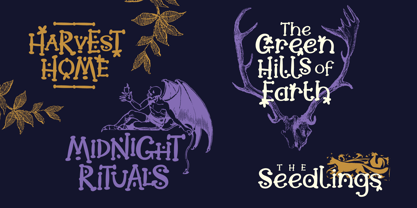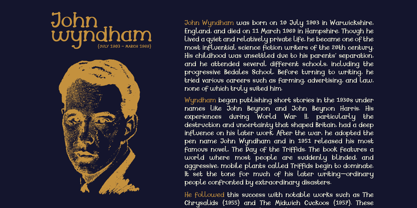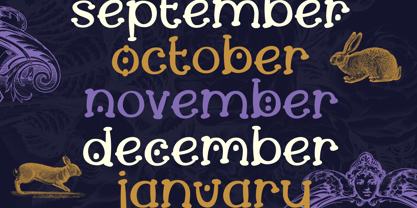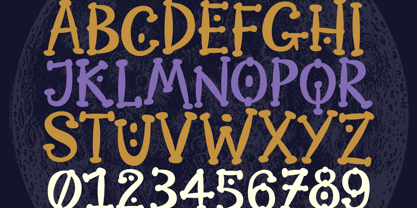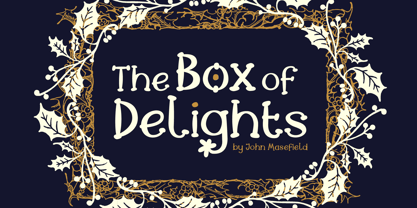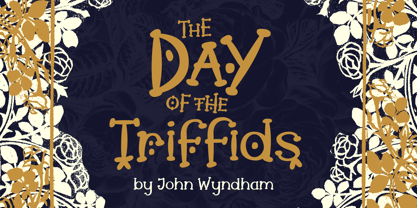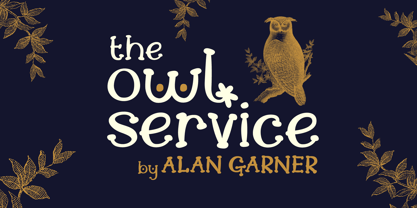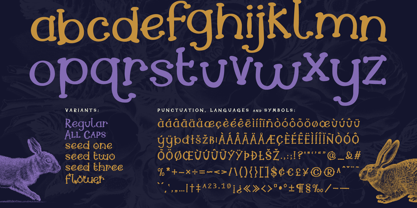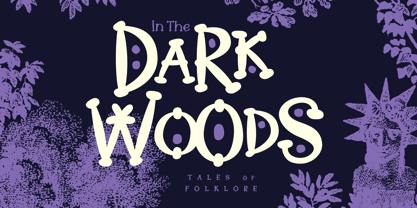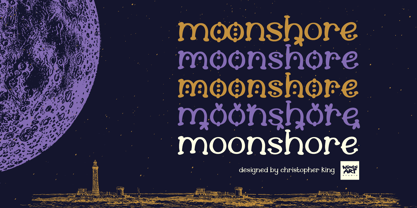
Moonshore
The Moonshore Font Family was designed by Christopher King and published by Wing's Art Studio. Moonshore contains 10 styles and family package options. More about this family
Moonshore - A Magical Folklore and Fantasy Font Inspired by classic English mysticism and folklore, Moonshore is a font deeply rooted in the ancient traditions of magic, nature, and children’s stories that warn of the dangers lurking within those far-off dark woods. Moonshore lives at the crossroads of nature, science, and the paranormal. Inspired by writers who explored the mysteries surrounding occult sites like Stonehenge, or new recording technology that might just capture a spectral image within the walls of an ancient castle. As October approaches and the nights draw in, it’s the perfect font for telling fire-side stories and indulging in some cosy Yuletide gothic. The Moonshore font family comes in eight styles, each with a complete uppercase and lowercase alphabet, along with numerals, punctuation, and language support. There’s an all-caps alternative, plus decorative variants starting with what I call the 'seeds' in three styles, and then the 'flower'. All of which add up to a fun-to-use font with endless creative options. Whether it's Autumn or Winter, Halloween or Christmas, Moonshore offers something for the storytellers among us, adding a visual flair to book covers, title designs, editorials, magic potions, or maybe even an ale or two.
Christopher King (aka Wingsart Studio) is a Graphic Designer specialising in hand-drawn lettering for film and television titles. From blockbuster films to indie press, Wingsart Studio fonts have appeared on screens big and small around the globe. His work has been used by companies including Disney, Marvel, Apple, Netflix and Paramount Studios.The Wingsart Studio philosophy is to embrace the imperfections inherent with real pens, pencils, paper and brush. In counter-balance to an AI driven age, these fonts remain refreshingly analogue and proud of their human touch. Before a single letter turns into a digital product, countless hours are spent researching and sketching out ideas in pursuit of those perfect lines and shapes.